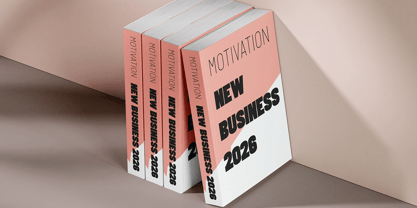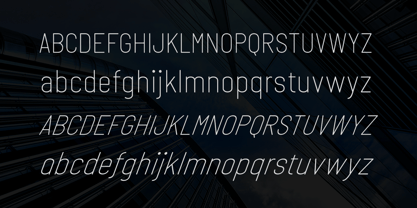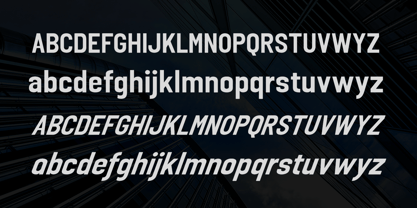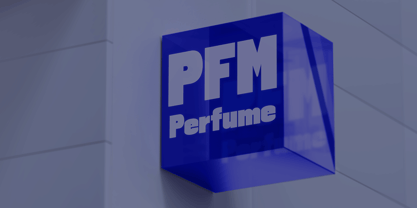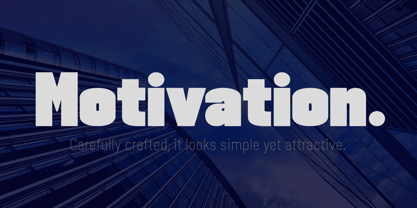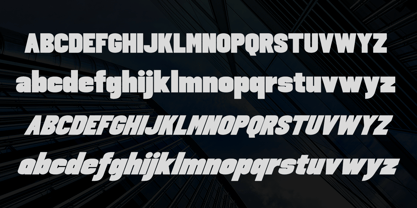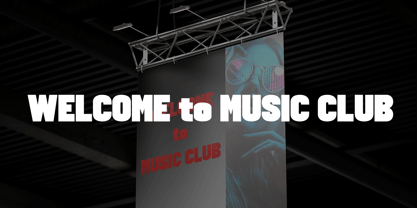
Motivation Sans Serif
The Motivation Sans Serif Font Family was designed by Marwah and published by BBA Key. Motivation Sans Serif contains 6 styles and family package options. More about this family
Introducing Motivation Sans Serif Motivation Sans Serif is a new modern font. Motivation Sans Serif is perfect for stationery, logos, t-shirts, paper, print designs, website headers, photo frames, leaflets, music covers, posters, image sliders and more. If you do not have programs that support OpenType features like Adobe Illustrator and CorelDraw X Versions, you can access all alternative flying machines using Font Book (Mac) or Character Map (Windows).